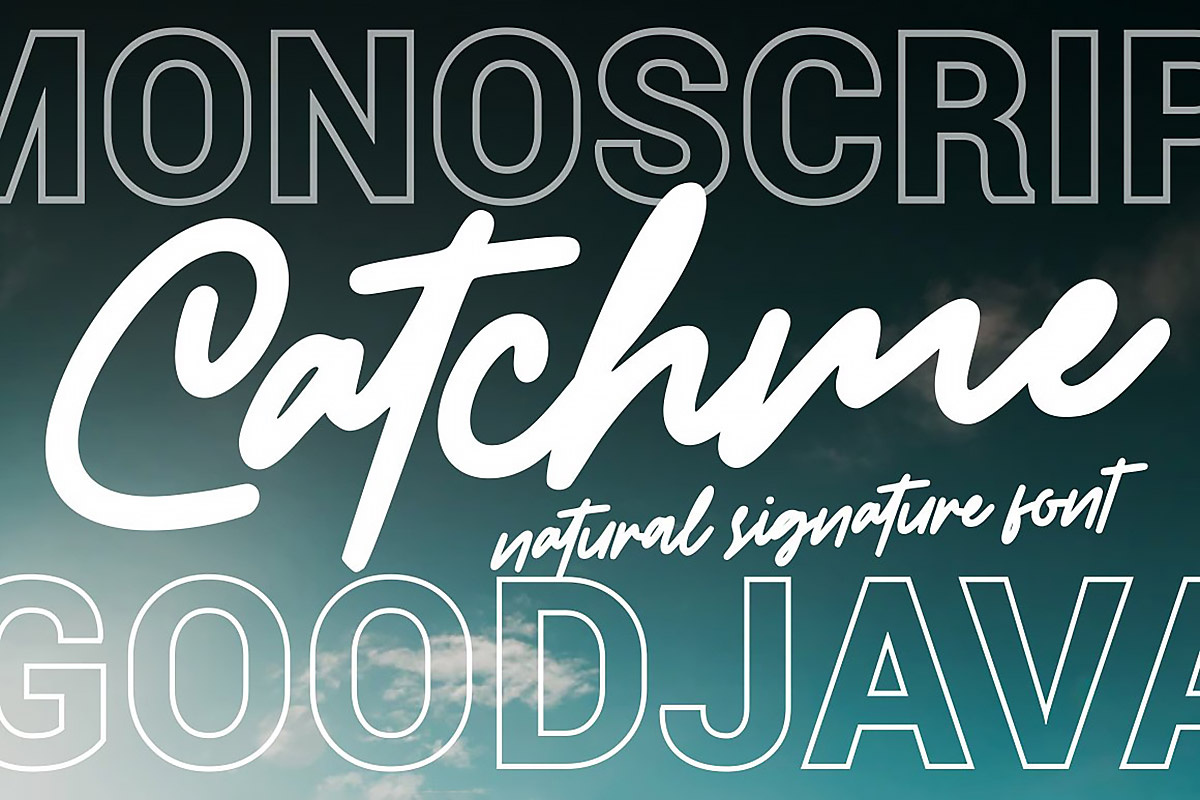
Free Catchme Signature Font
Free Catchme Signature Font is a fun and friendly script with a unique style, get inspired by its powerful style. It contains uppercase, lowercase, punctuation and symbols. Catchme is great to use for logo, invitation, stationery, wedding designs, social media posts, advertisements, business card, flyer, clothing, stationery, product packaging, product designs, label, photography, watermark, special events or anything.